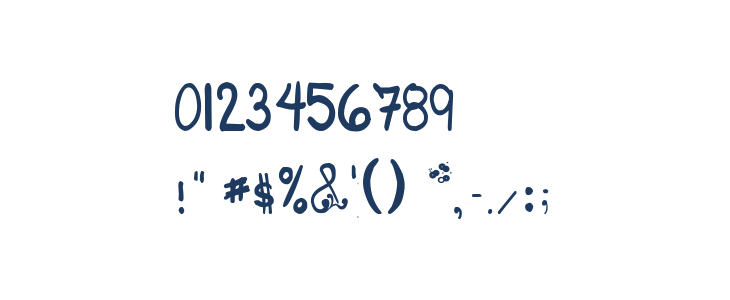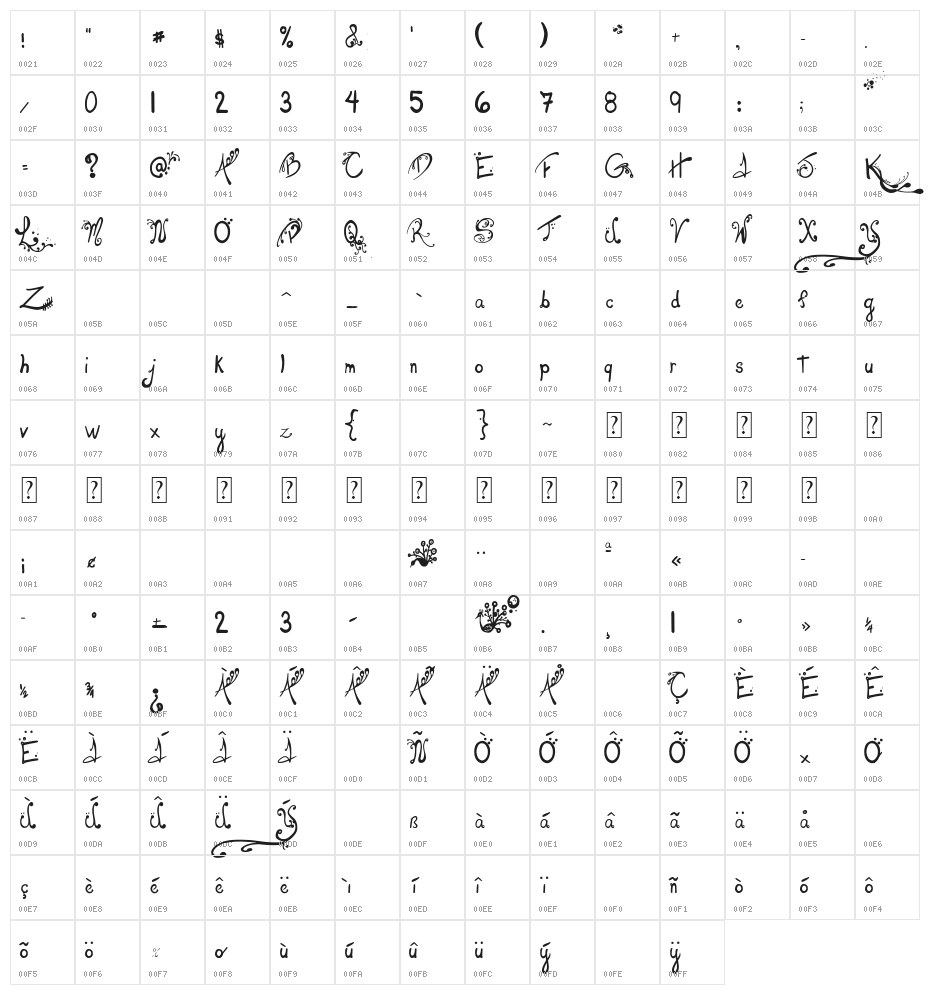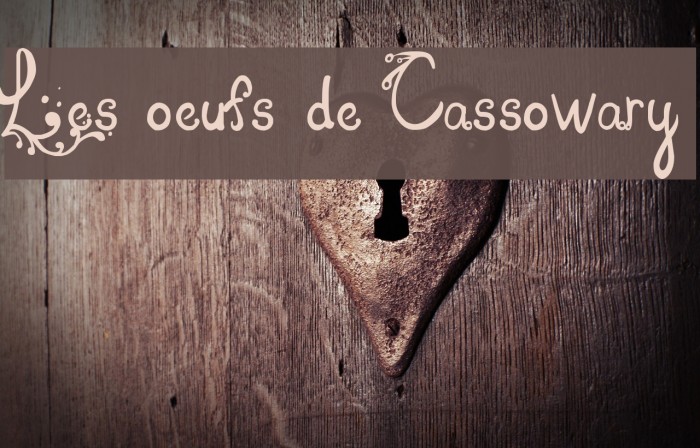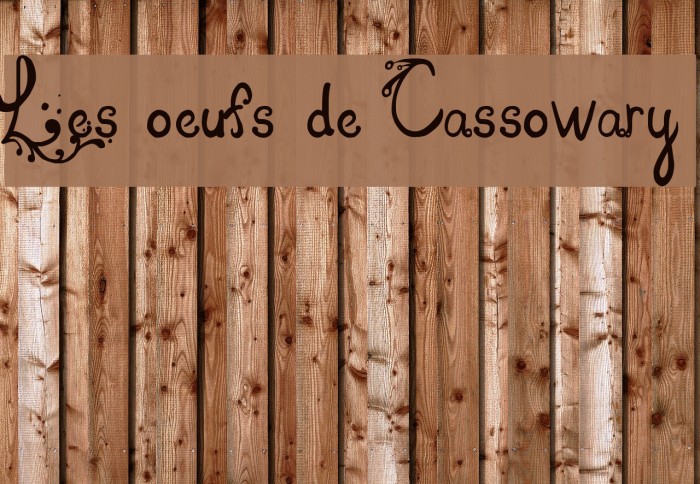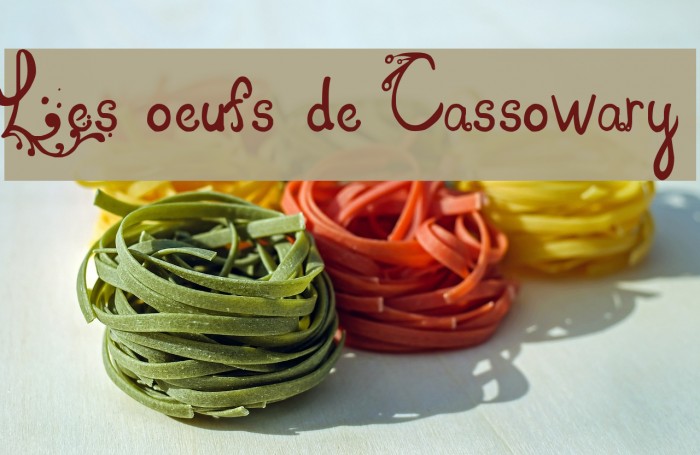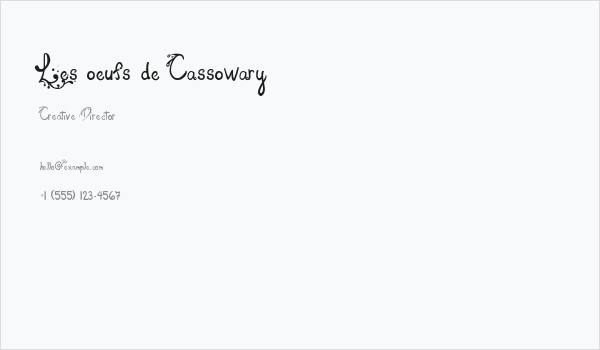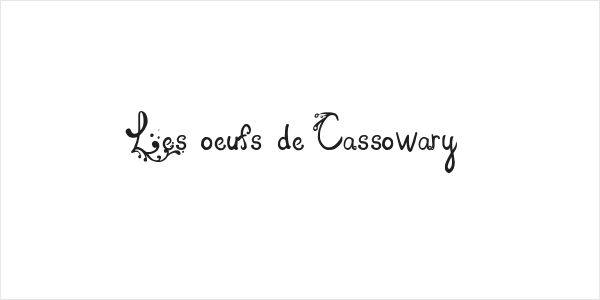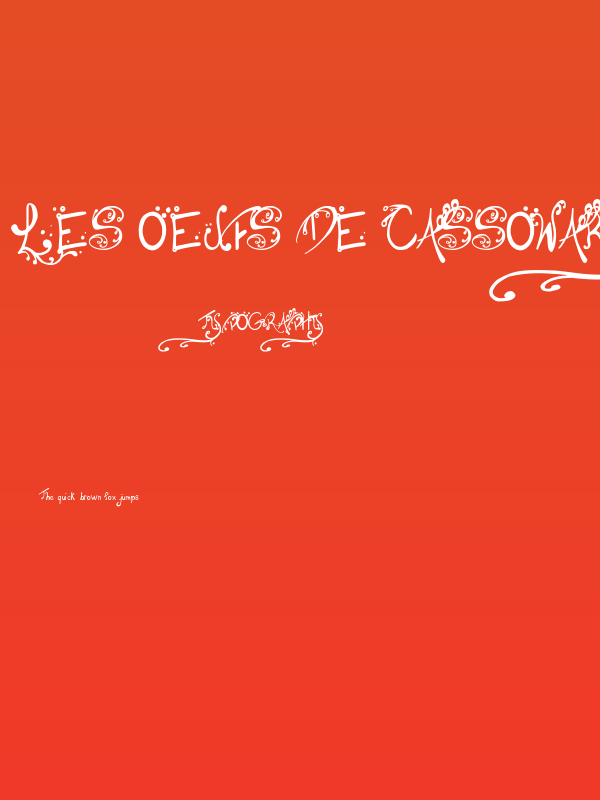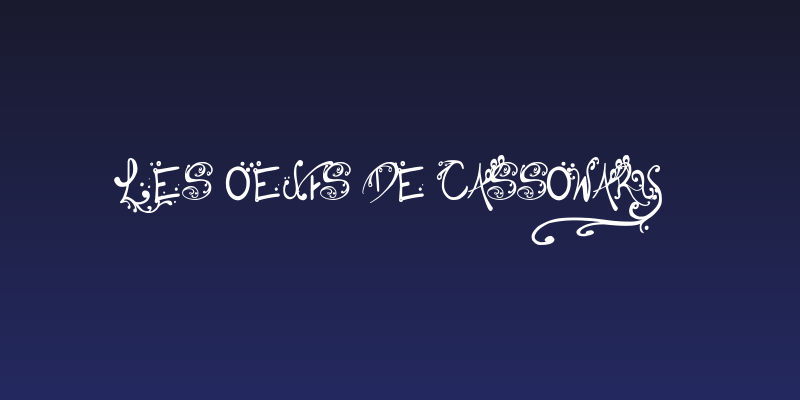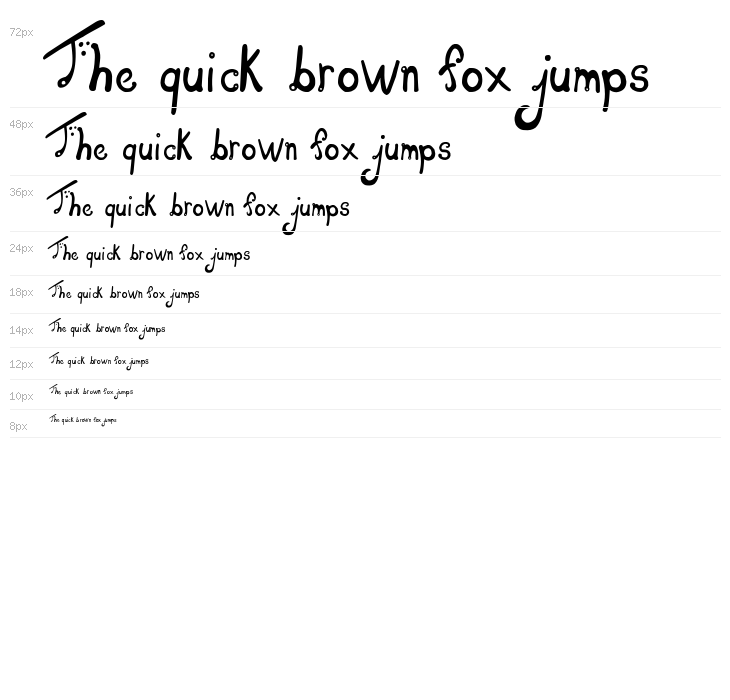
Les oeufs de Cassowary Font
Les oeufs de Cassowary Description
This font is a whimsical and decorative typeface with a playful and artistic flair. The uppercase letters are adorned with intricate swirls and dots, giving them a unique and ornate appearance. The lowercase letters maintain a more fluid and casual style, complementing the elaborate uppercase. Numbers are bold and slightly rounded, maintaining the playful theme. Special characters are creatively designed, adding to the font's overall charm. The font's artistic elements make it stand out, suitable for projects that require a touch of creativity and uniqueness.
| Proposed Projects | Ideal for children's book covers, playful branding, artistic posters, and creative invitations. |